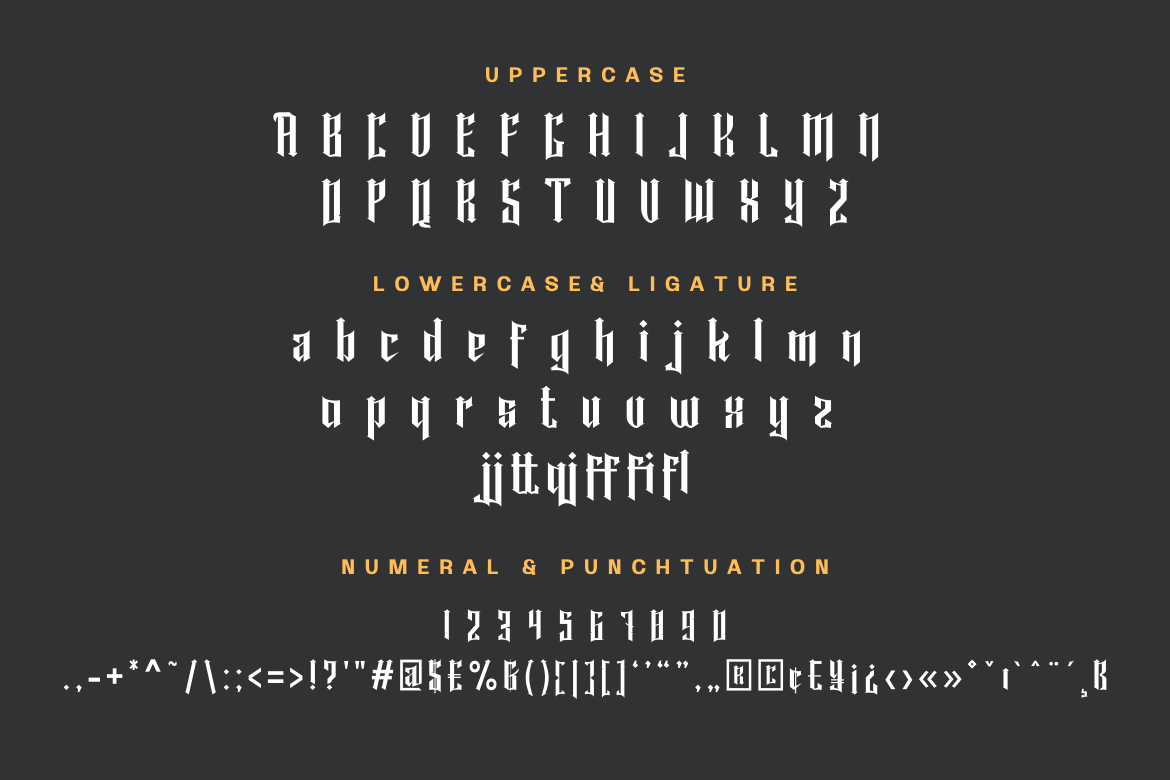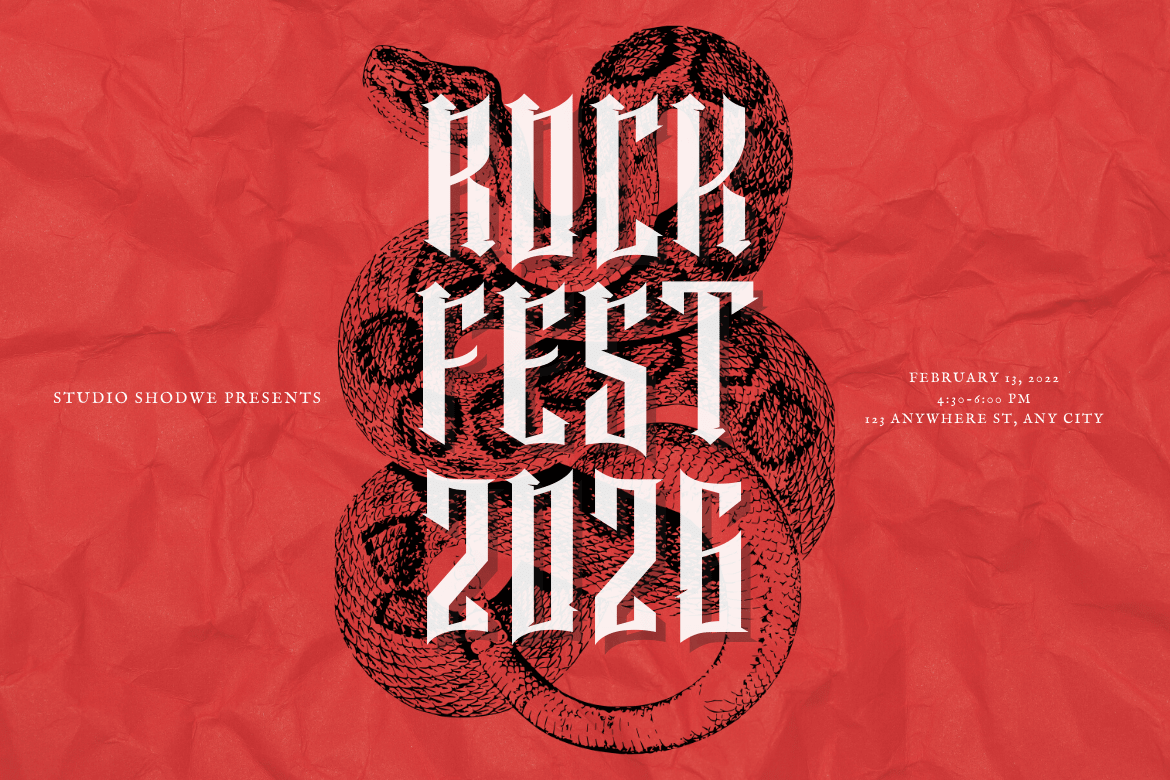
Rawuh – Blackletter Font
Rawuh is a unique gothic black letter for your designs. If you want to stand out from the crowd and add a touch of elegance, then this is the font you need. The black letter style works perfectly for any Gothic-themed tattoo, label, packaging, branding, or project!
- Ligature